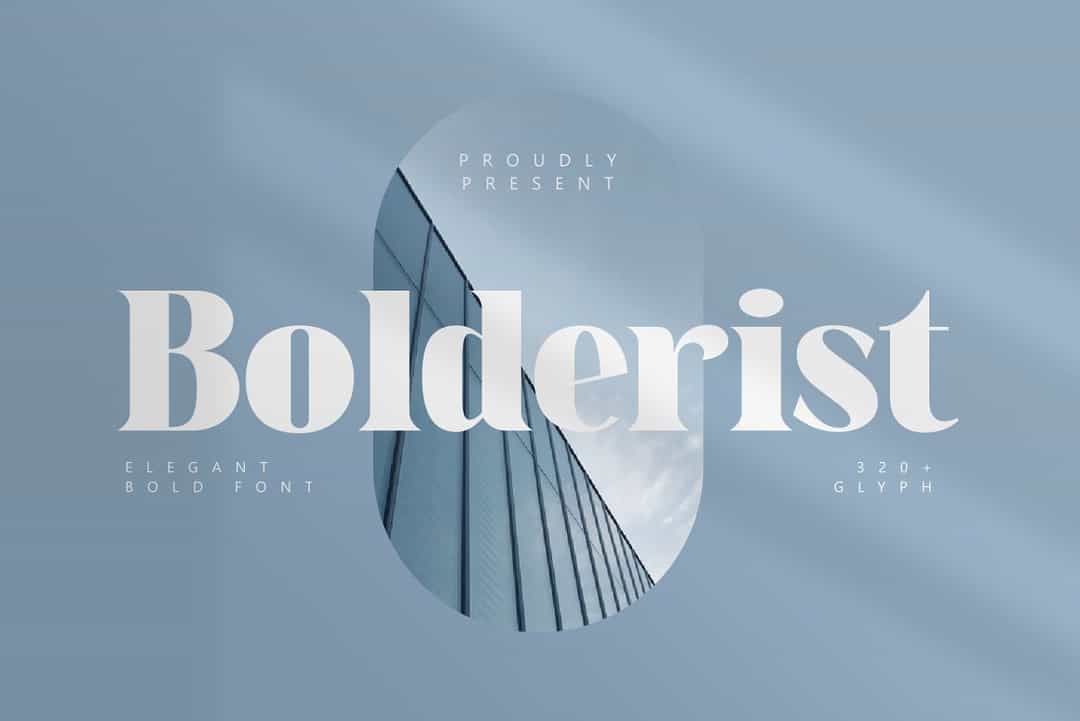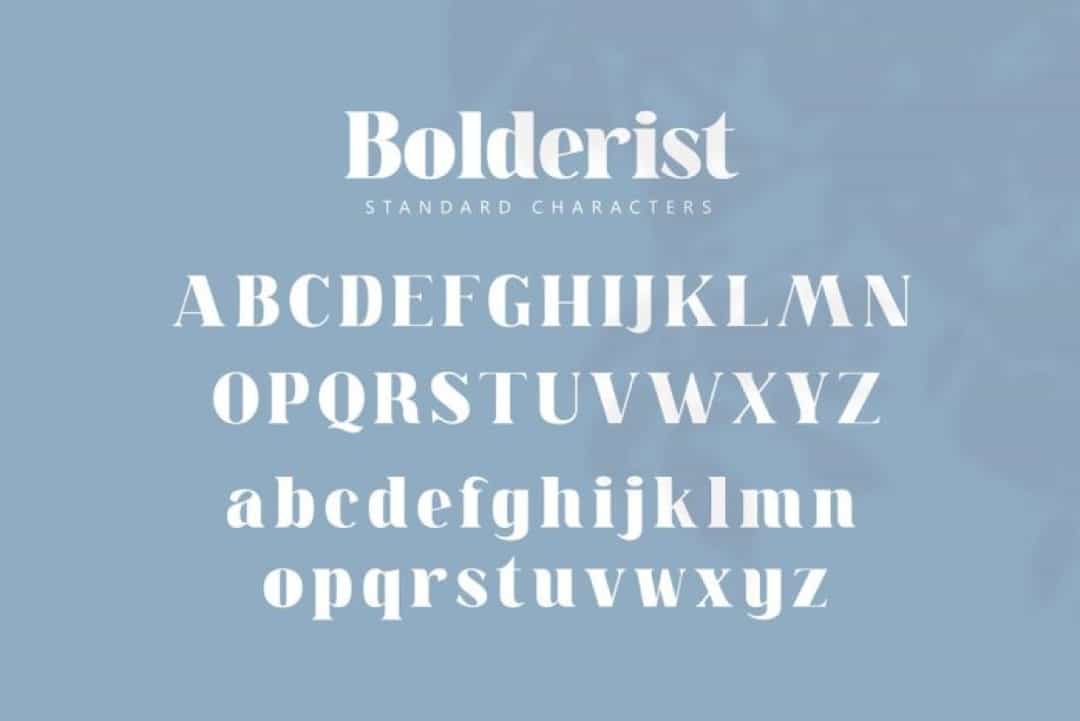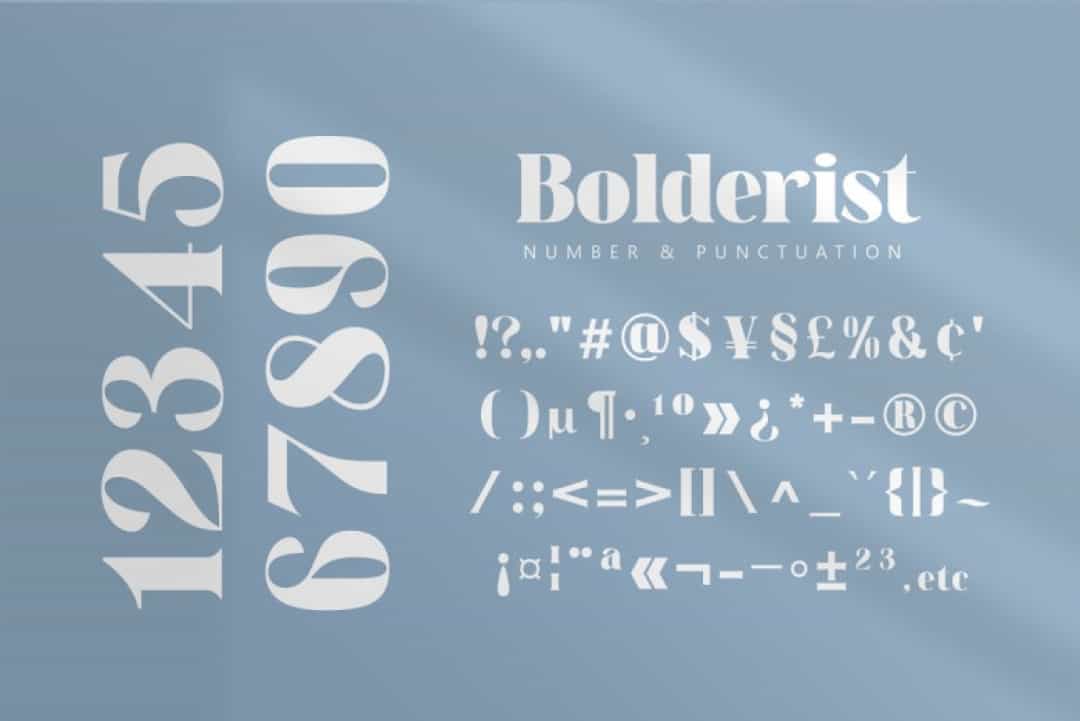
Bolderist is an eye-catching bold serif font designed specifically to be read quickly and effortlessly, while remaining stylish and artistic in design. Every curve has been integrally designed and has an extreme point, providing smooth curves on all sides.